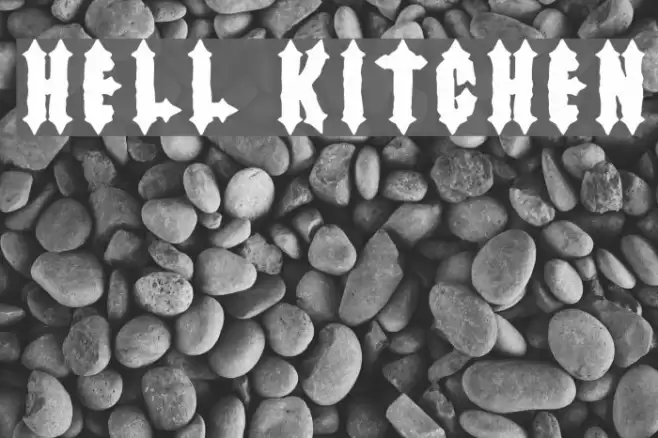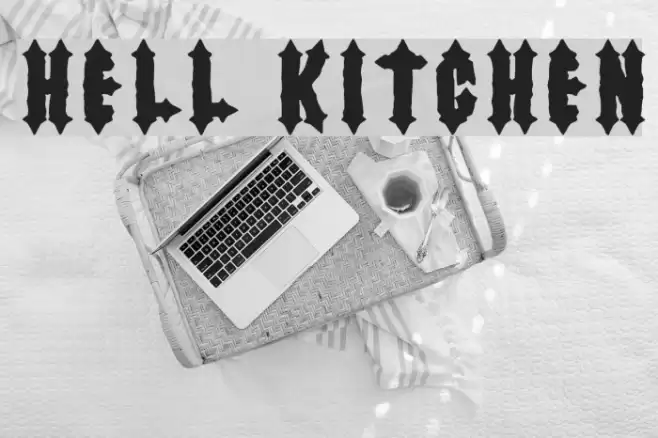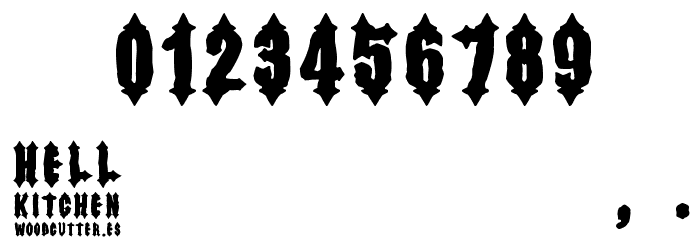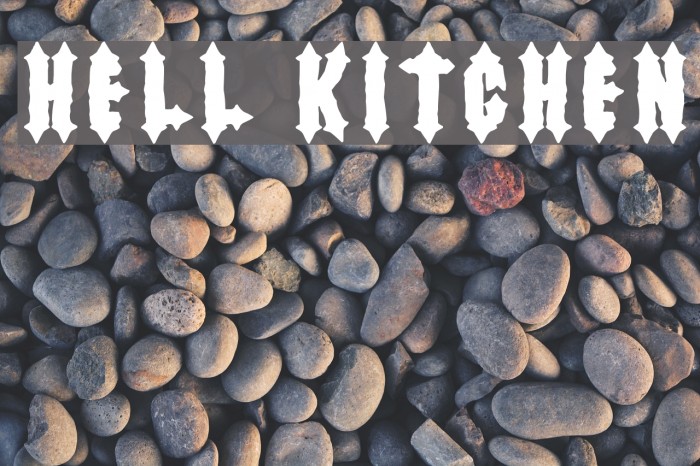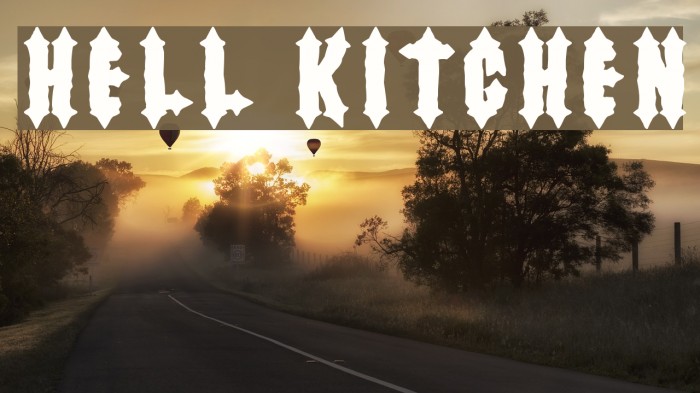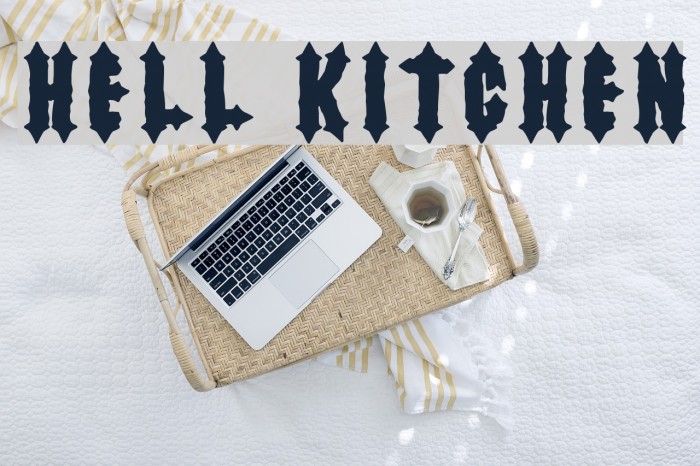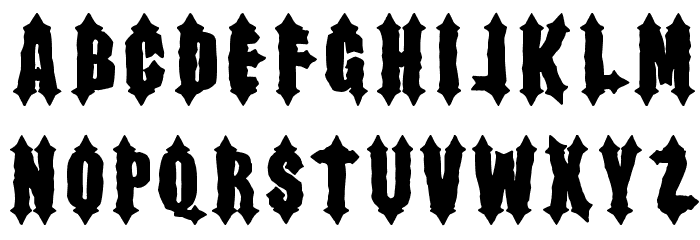
Hell Kitchen Font
Hell Kitchen Description
This font features a bold and dramatic style with sharp, angular edges and a gothic influence. The characters are heavily stylized, with a strong emphasis on vertical strokes and pointed serifs, creating a sense of intensity and power. The uppercase and lowercase letters maintain a consistent design, while the numbers and special characters follow the same aesthetic, ensuring uniformity across all elements. The overall appearance is striking and memorable, making it suitable for projects that require a bold statement.
A bold, gothic-inspired font with sharp, angular edges and dramatic styling from Uncategorized fonts.
- Proposed Projects: Ideal for horror-themed designs, movie posters, album covers, or any project needing a bold, edgy look.